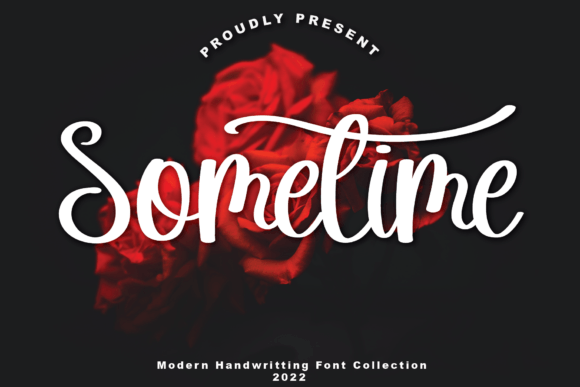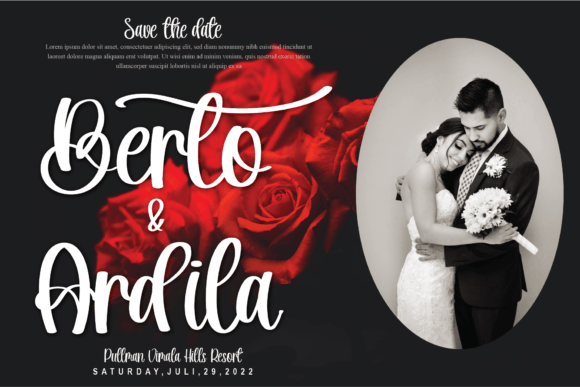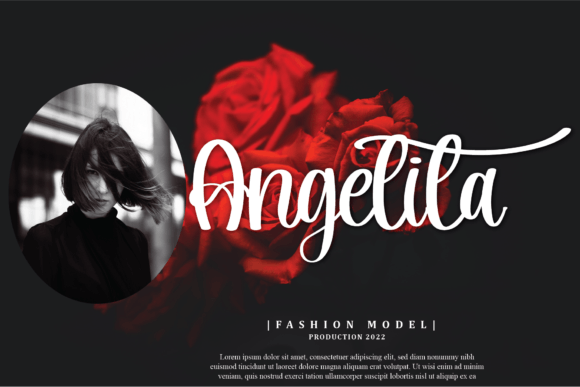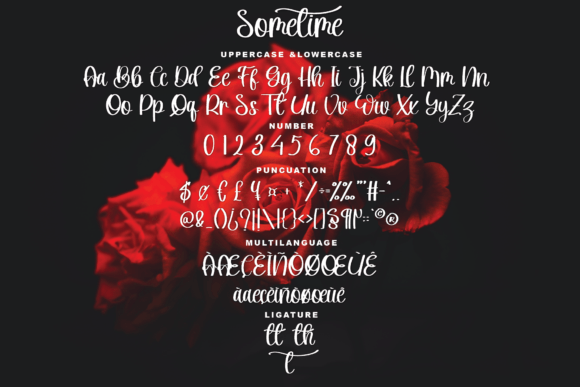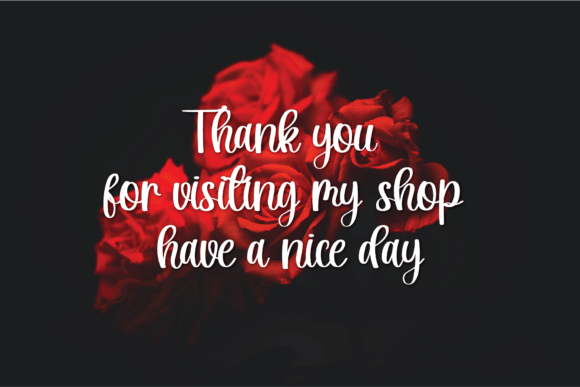
Sometime Font
About Sometime Font
“Sometime Font: Elegantly Handwritten Beauty with a Modern Twist
Introducing Sometime, an elegantly handwritten font that combines beauty with a modern impression. This stunning typeface is a perfect fit for a wide range of design applications, including wedding invitations, thank you cards, greeting cards, business cards, logos, products, advertisements, quotes, and any other design project that requires a touch of handwritten elegance.
More than just a font, Sometime is a design masterpiece that captures the essence of handwritten beauty with a contemporary twist. Its elegant strokes and modern impression make it a versatile choice for various design styles and applications.
The beauty of Sometime shines through in its ability to enhance the visual appeal of diverse projects. Whether you’re working on digital graphics or tangible items, Sometime adapts effortlessly to elevate the aesthetics of your designs.
For wedding invitations and thank you cards, Sometime becomes a stylistic choice, adding a touch of elegance and a modern vibe to your text. The font’s handwritten beauty is perfect for creating visually appealing and emotionally engaging content.
In business cards, logos, and product designs, Sometime serves as a distinctive element, contributing to memorable and stylish brand identities. Its varied and interesting hand strokes, along with stunning alternates, add depth and character to your designs.
Sometime’s versatility extends to various print and digital materials, making it suitable for advertisements, quotes, and more. The font’s unique and modern charm enhances the overall aesthetics, creating a visually pleasing experience.
In conclusion, Sometime is more than just a font; it’s a design companion that brings elegantly handwritten beauty with a modern twist to your creative toolkit. Let Sometime be the brushstroke that enhances the beauty of your projects. Embrace the versatility and timeless charm of Sometime, and watch as it transforms your ideas into visually enchanting experiences.”